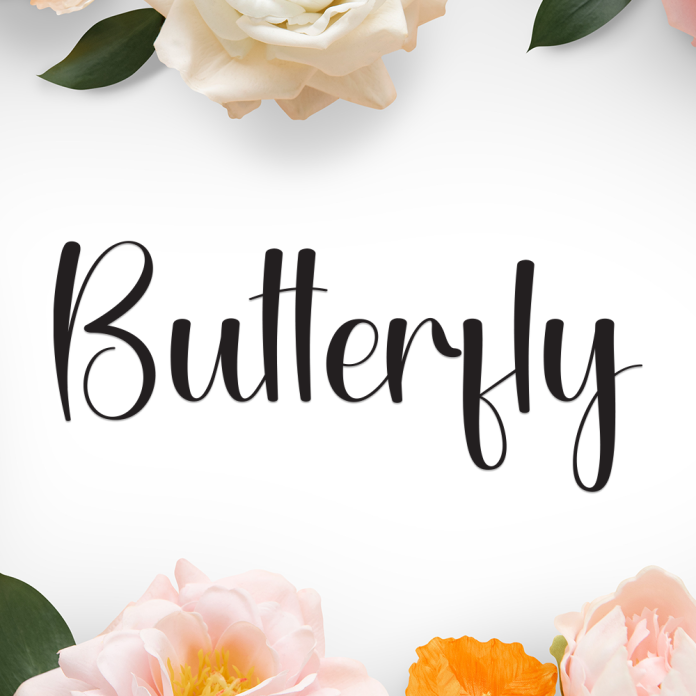
Butterfly is a delicate and graceful handwriting font inspired by the lightness and beauty of fluttering wings. With flowing lines and soft curves, this font captures a handwritten feel that is both whimsical and romantic.
Perfect for wedding invitations, greeting cards, personal branding, and quotes, Butterfly brings a sense of warmth and elegance to every design.
Elegant and fluid script style
Looks natural and handwritten
Ideal for feminine or romantic projects
Let your words take flight with the beauty of Butterfly.